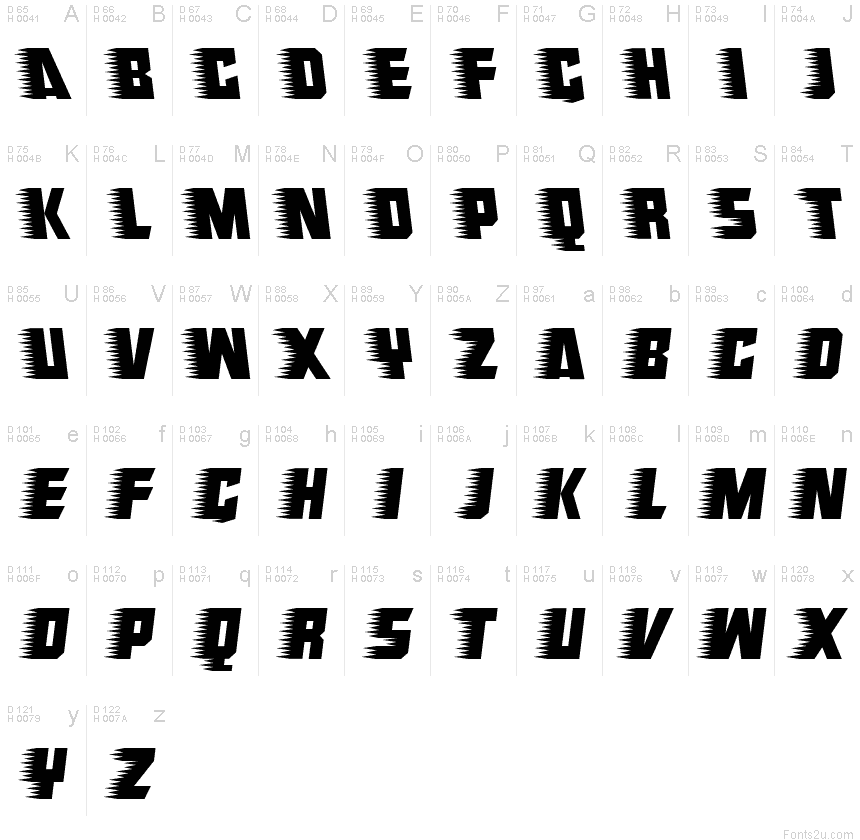
Endeavour forever
Endeavour Forever font by Jakob Fischer of PizzaDude is a free techno typeface that looks like it’s been yanked forward at high speed. Thick, blocky letters are shredded along one side with sharp, sawtooth cuts, creating a built‑in motion blur that feels loud, grainy, and kinetic. The rhythm of those jagged edges keeps every word buzzing, even in a single line of text.
Using Endeavour forever, you can slam instant energy into racing posters, game titles, sci‑fi covers, extreme sports flyers, themed party graphics, or high‑impact logos. This free font shines in big sizes where the zigzag texture can really bite into the background. For anything longer than a short headline, pair it with a plain, compact sans serif to keep things legible while Endeavour forever handles the punch.